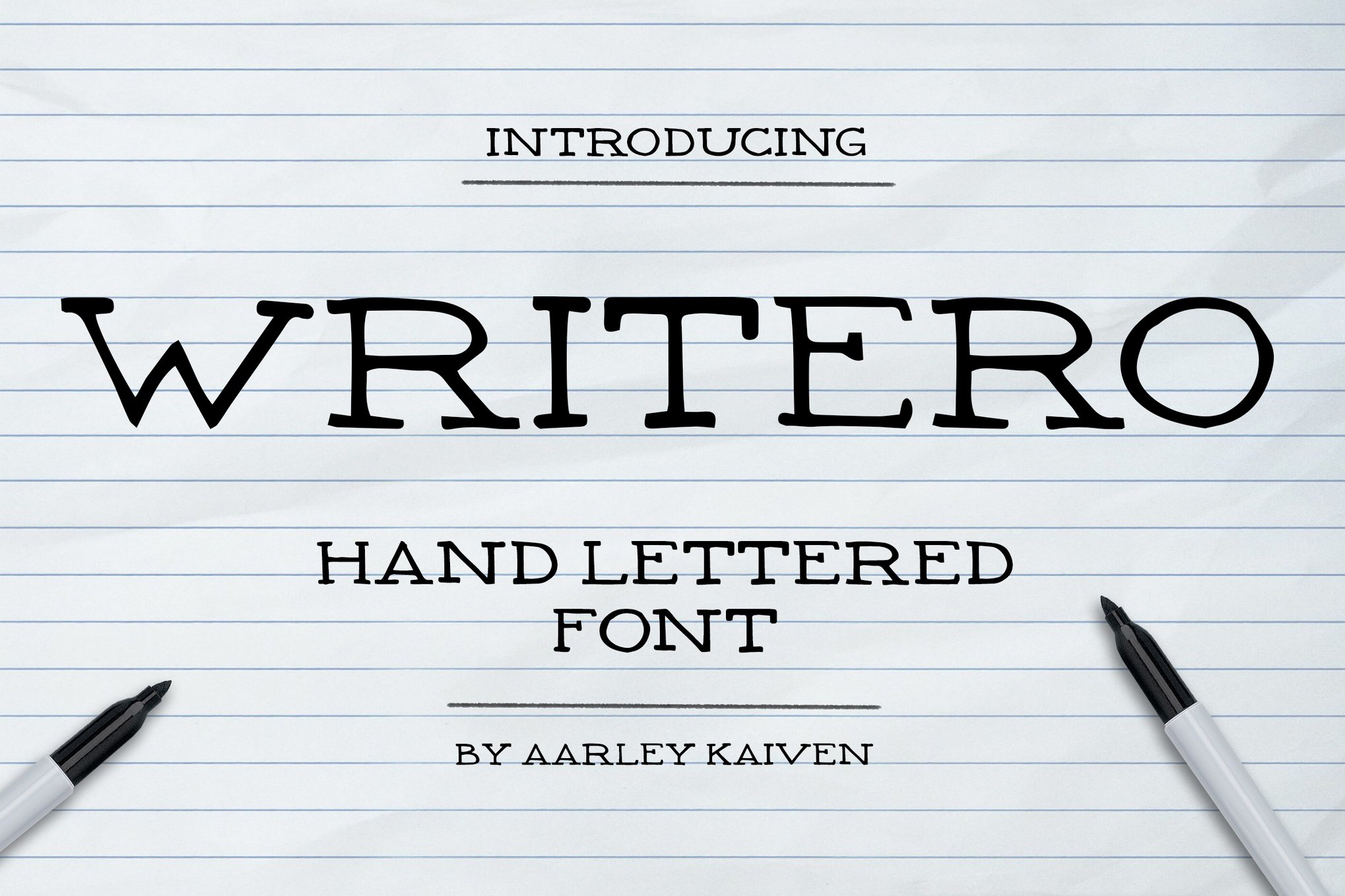
Writero Font
Writero Font is perfectly suited for author branding, literary magazine layouts, creative writing workshops, publishing house logos, book cover designs, poetry collections, screenplay formatting, writing conference materials, and authentic storytelling applications.
What makes Writero Font so exciting is its distinctive literary character and creative authenticity that perfectly captures the essence of professional writing and artistic expression in every carefully crafted letterform. This inspiring typeface embodies the spirit of storytelling with its thoughtful proportions and subtle character variations that evoke the rhythm and flow of compelling prose. The font's balanced design and refined details create an atmosphere of intellectual creativity and literary sophistication that resonates with writers, readers, and literary enthusiasts who appreciate the craft of wordsmithing. Writero Font stands out through its ability to convey creativity, literary authority, and artistic integrity, making it perfect for projects that need to establish credibility in literary circles while inspiring audiences who value the power of written expression and creative storytelling.
The Writero Font family includes Light, Regular, Medium, and Bold weights, each maintaining the font's distinctive literary character while providing design flexibility for various publishing applications. The family also features stylistic alternates and typographic refinements that enhance the font's creative appeal and provide comprehensive solutions for sophisticated literary design projects.
The technical excellence of Writero Font includes an extensive character set with uppercase and lowercase letters, numerals, punctuation marks, and literary symbols that maintain the font's creative character. The font has been meticulously designed to ensure optimal reading comfort and visual appeal across both digital and print applications while preserving the subtle details that give it its distinctive literary character and creative authenticity.
Whether you're designing literary publications, creating author branding materials, developing creative writing resources, or crafting designs that need to convey literary sophistication and creative excellence, Writero Font delivers the perfect combination of artistic integrity and professional functionality that makes your projects resonate with audiences who appreciate the beauty and power of exceptional written expression.